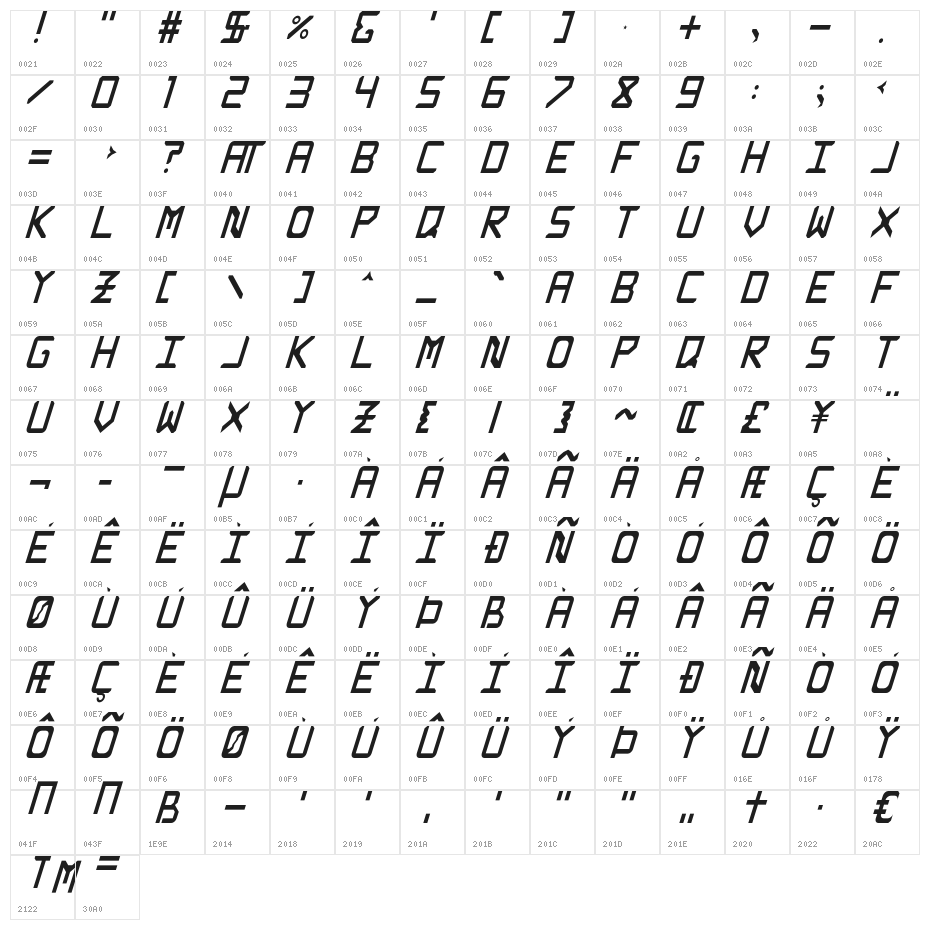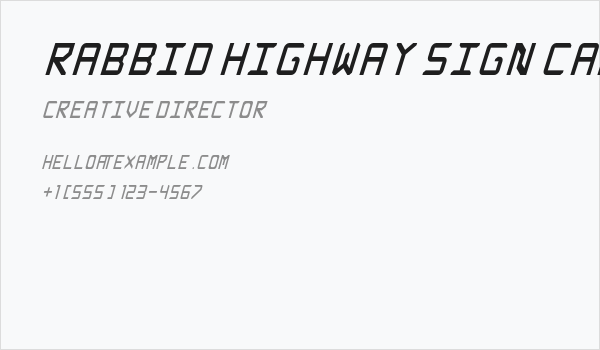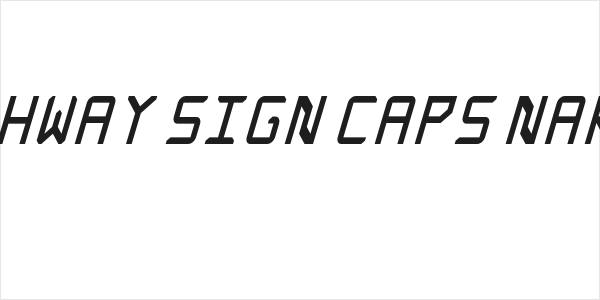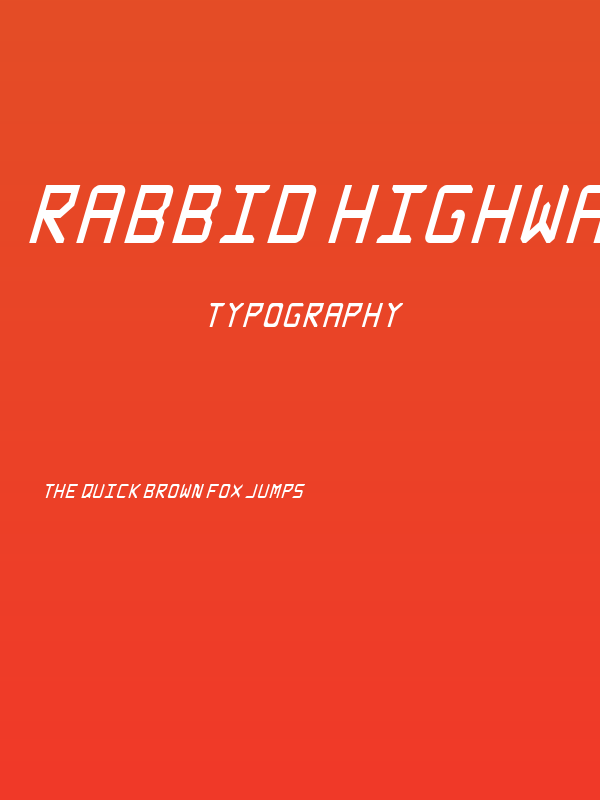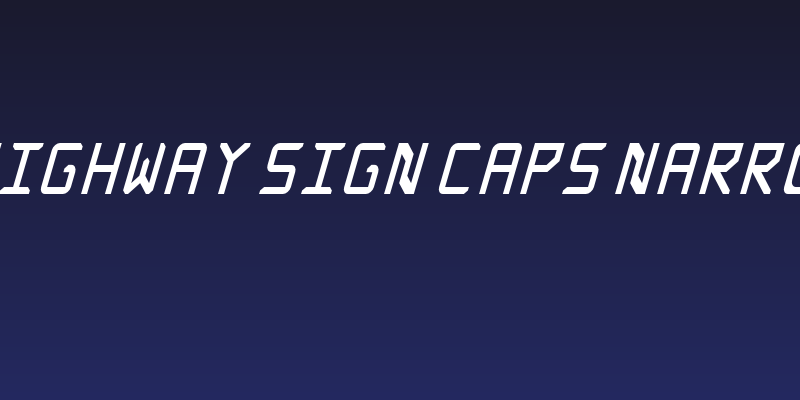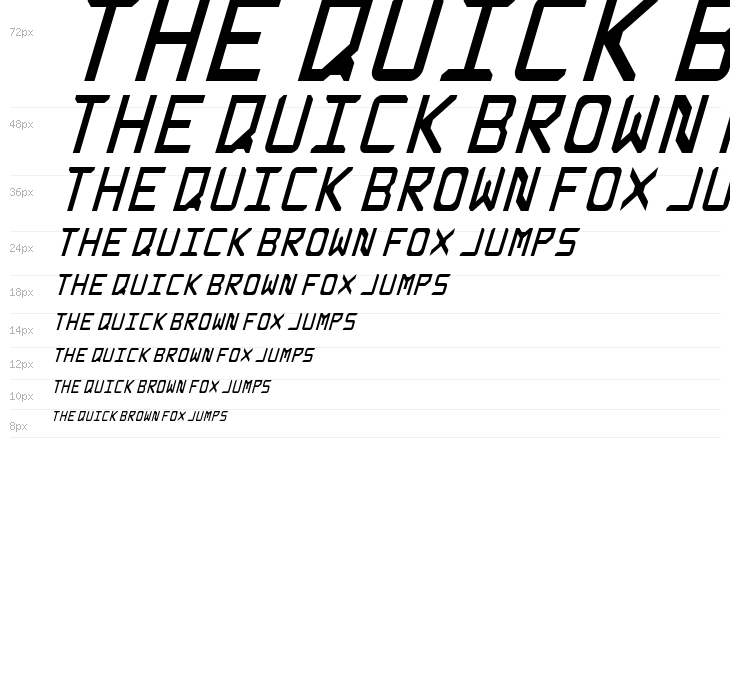
Rabbid Highway Sign Caps Narrow Italic Font
Rabbid Highway Sign Caps Narrow Italic Description
This font features a bold, italicized style with a distinctly modern and angular appearance. The characters are narrow and slightly slanted, giving a sense of movement and urgency. The uppercase letters are uniform in height, with sharp edges and clean lines, while the lowercase letters maintain the same angular style, ensuring consistency throughout. The numerals are similarly styled, with a geometric precision that complements the overall design. Special characters are included, maintaining the same aesthetic, making this font versatile for various applications.
| Use Case | Headlines, Logos, Signage |
| Proposed Projects | Ideal for highway signage, sports branding, dynamic posters, and modern digital interfaces. |